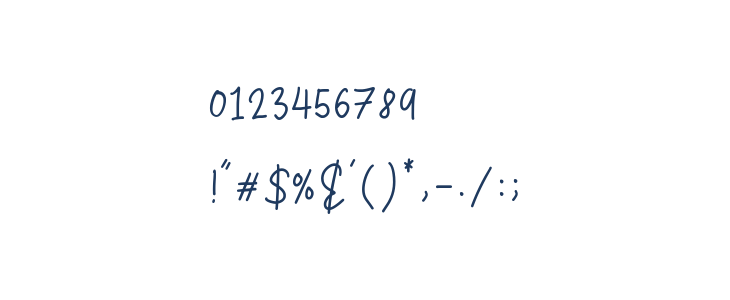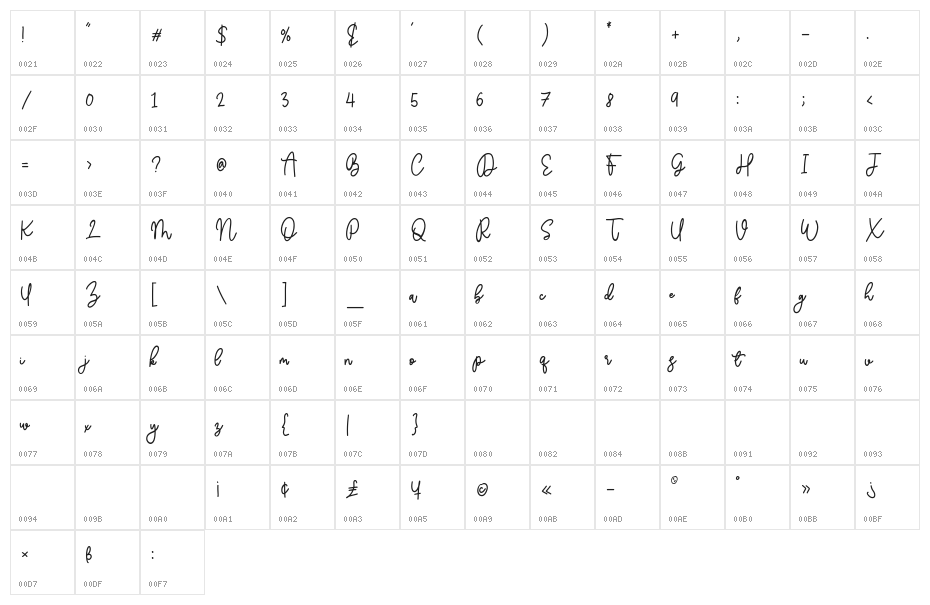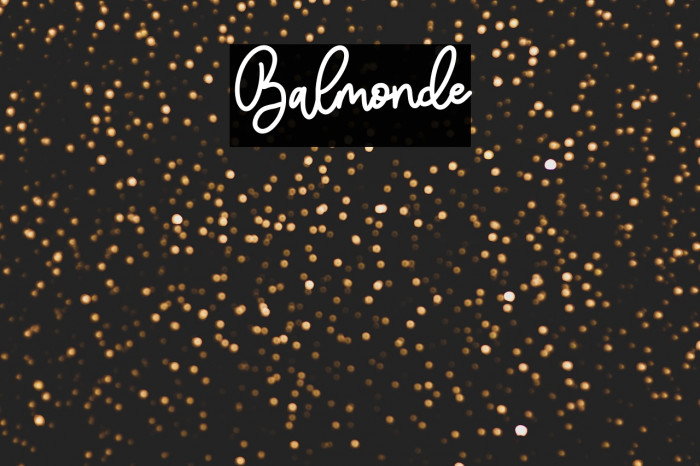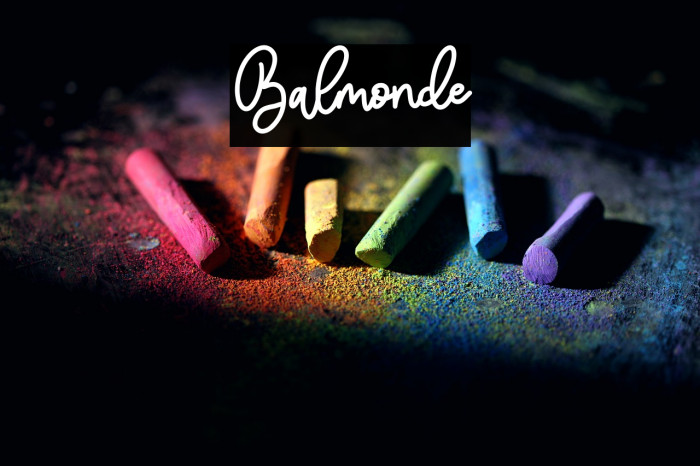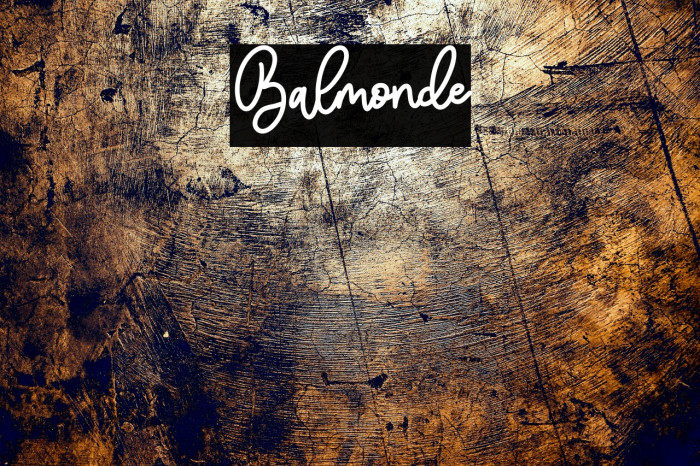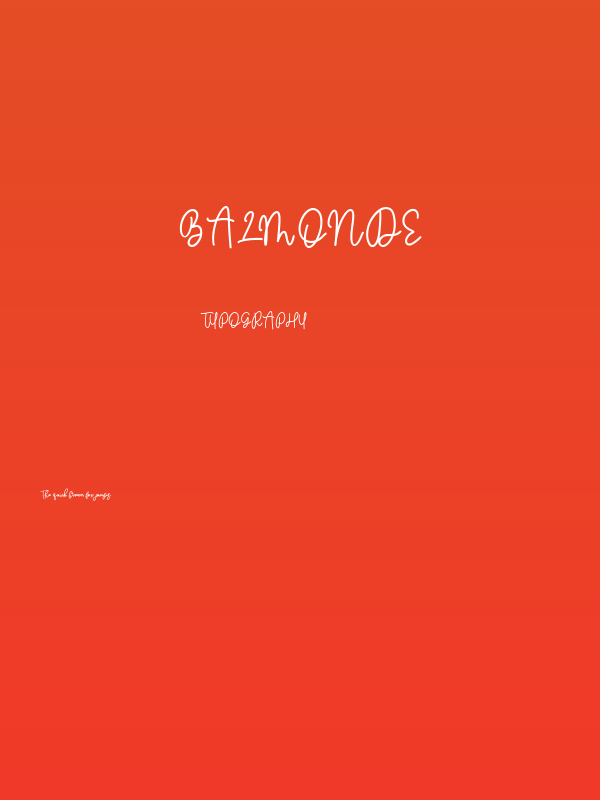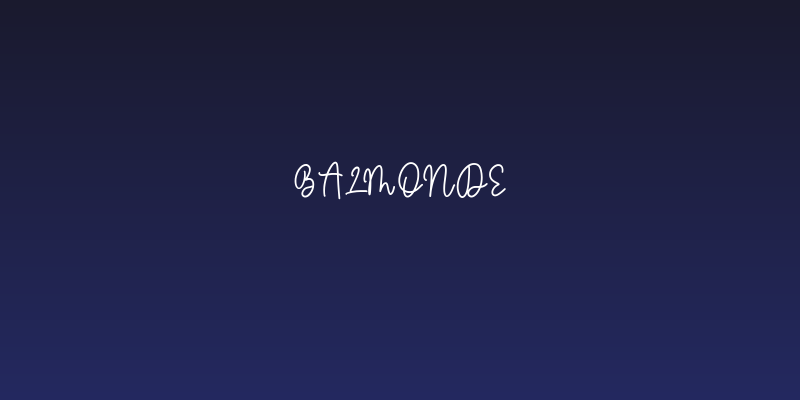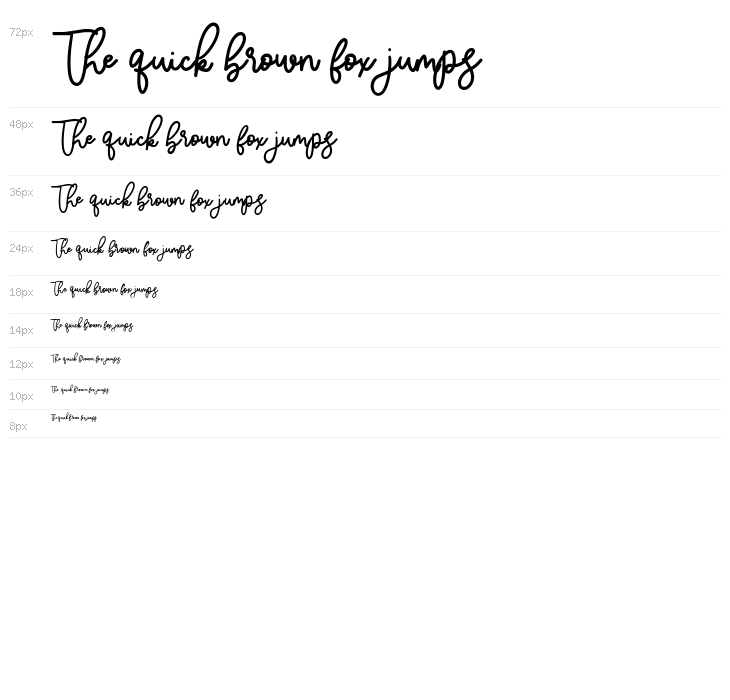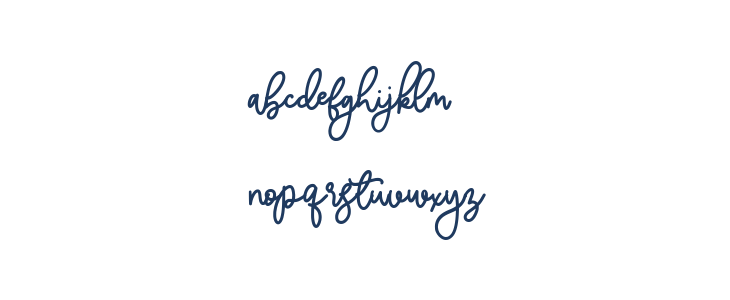
Balmonde Font
Balmonde Description
This font features a playful and casual handwritten style, characterized by its smooth, flowing lines and slightly irregular letterforms. The uppercase letters are bold and prominent, with a slight slant that adds a dynamic feel. The lowercase letters are more connected, resembling cursive handwriting, which gives the font a personal and informal touch. The numerals are consistent with the overall style, maintaining the same fluidity and casual elegance. Special characters are well-integrated, matching the playful and approachable aesthetic. This font is versatile, suitable for projects that require a friendly and inviting appearance.